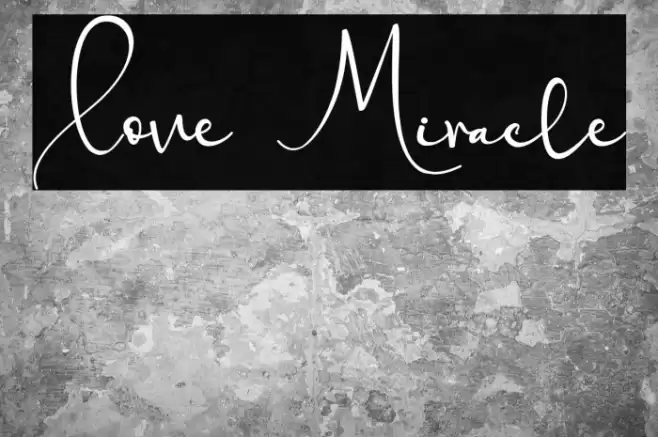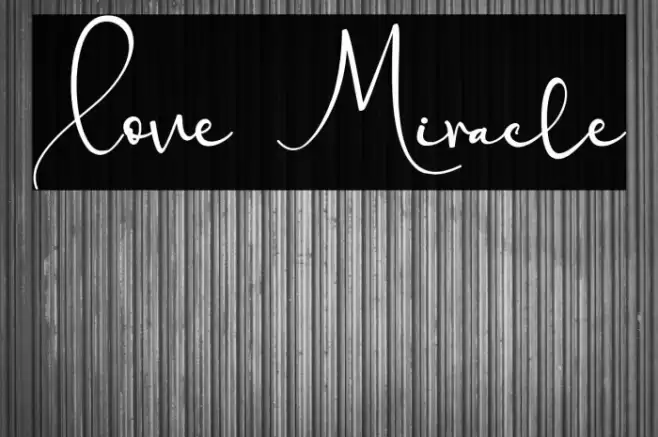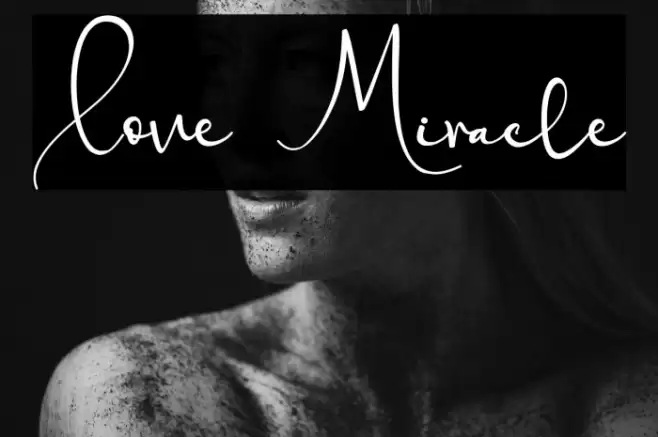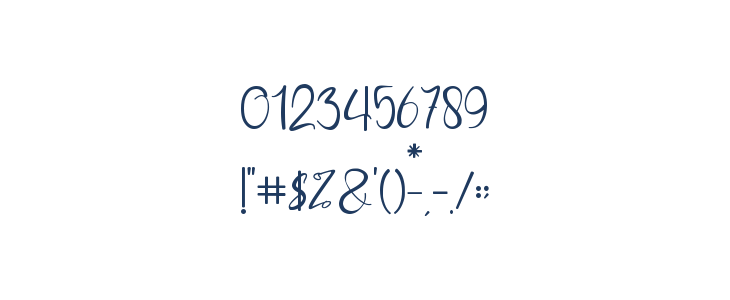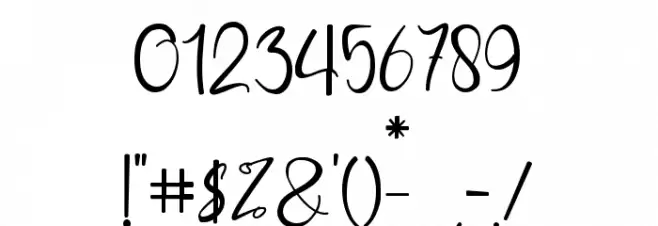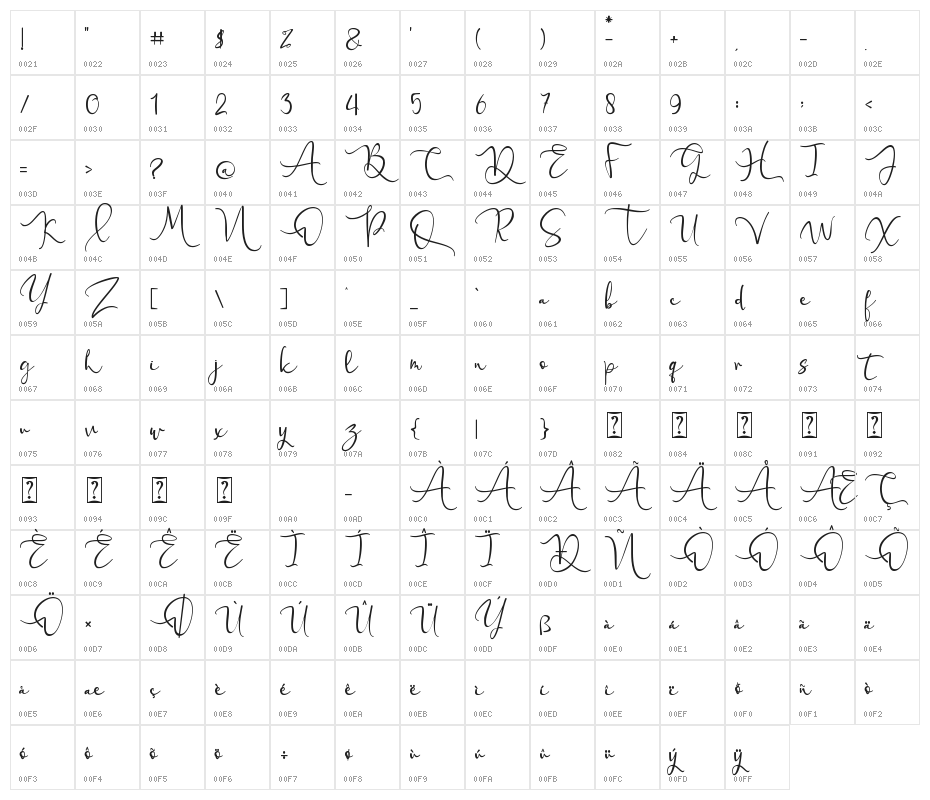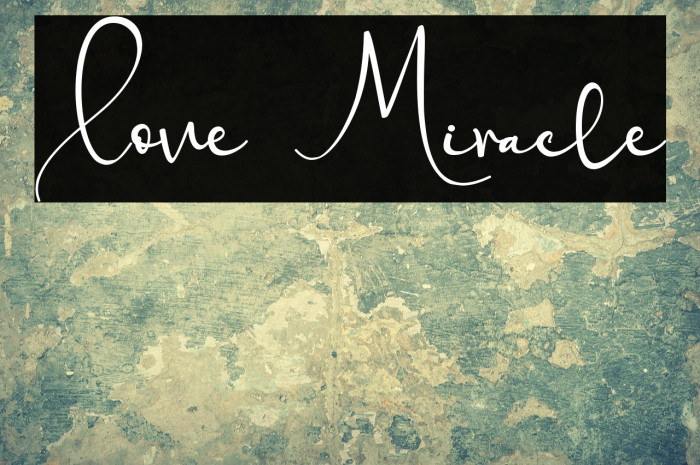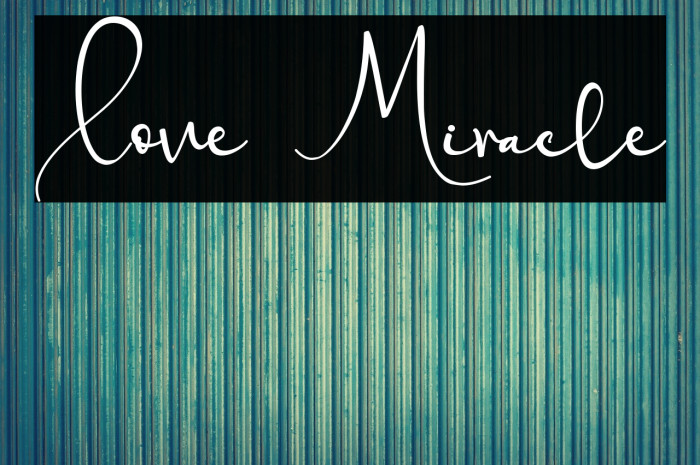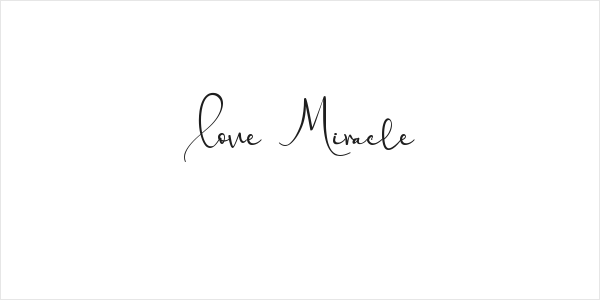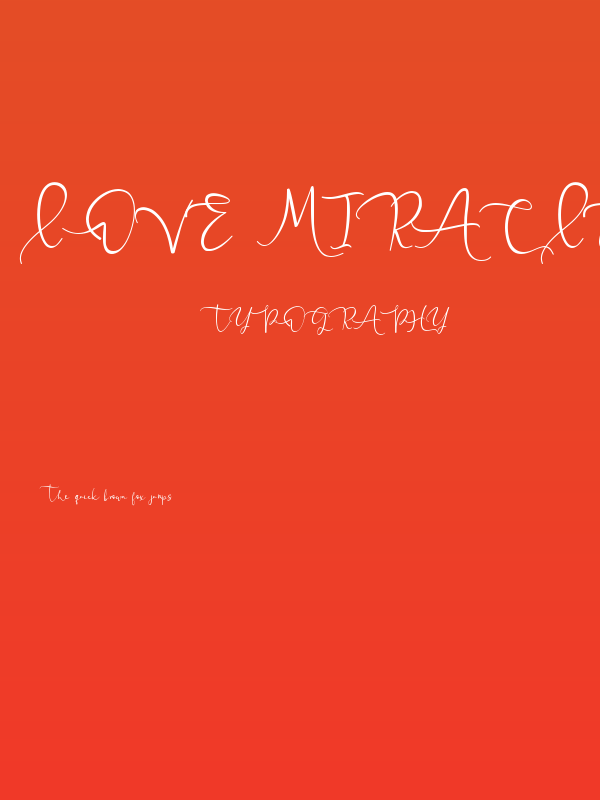
Love Miracle Font
Love Miracle Description
This font exudes a sense of elegance and fluidity, characterized by its cursive, handwritten style. The uppercase letters are particularly ornate, with sweeping curves and loops that give a sense of movement and grace. The lowercase letters maintain a consistent flow, complementing the uppercase with their own subtle flourishes. Numbers are clear and legible, maintaining the overall aesthetic of the font. Special characters are thoughtfully designed, integrating seamlessly with the alphabetic characters. This font is perfect for projects that require a personal touch, such as invitations, greeting cards, or branding that seeks to convey sophistication and warmth.
A cursive, handwritten font with elegant, flowing lines and ornate details from Regular fonts.
- Proposed Projects: Ideal for wedding invitations, personal branding, greeting cards, and elegant packaging.
- Overall Style: Elegant, Decorative
- Use Case: Headlines, Invitations, Branding